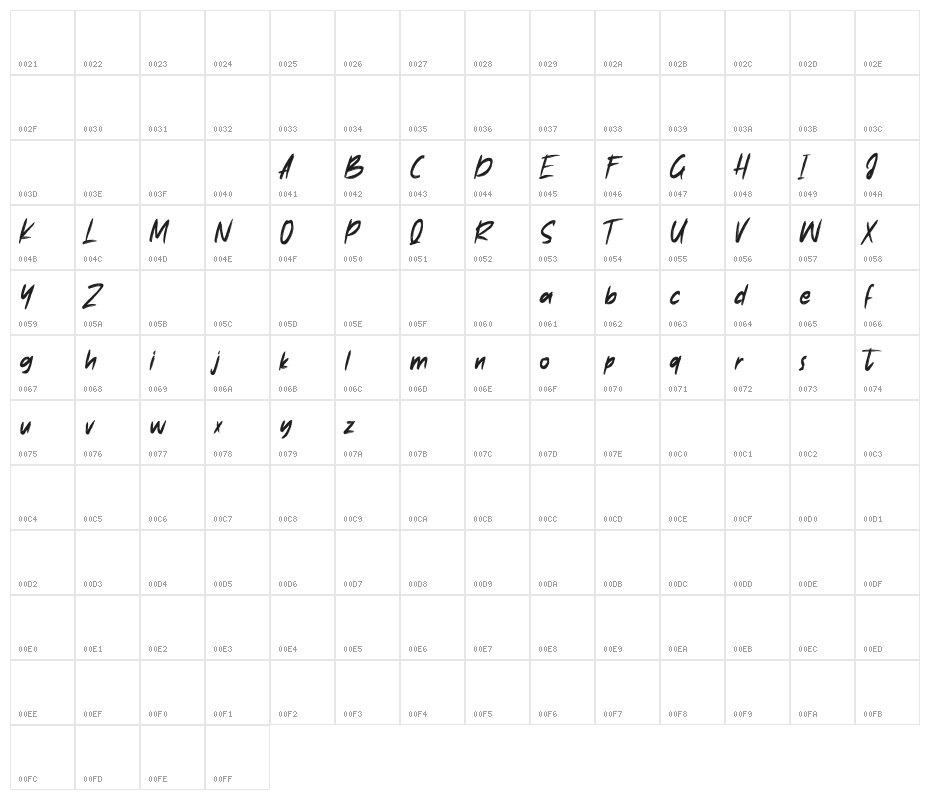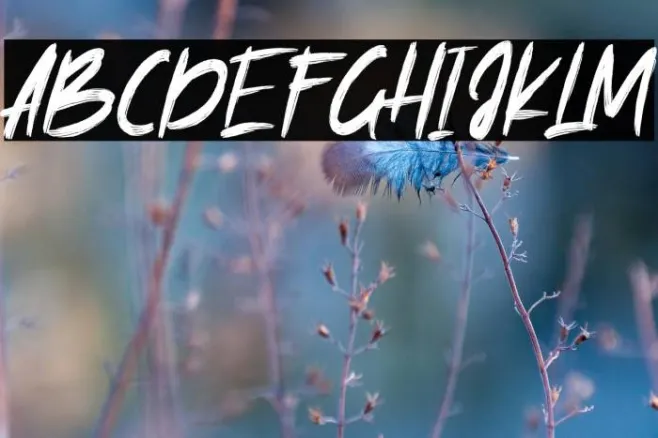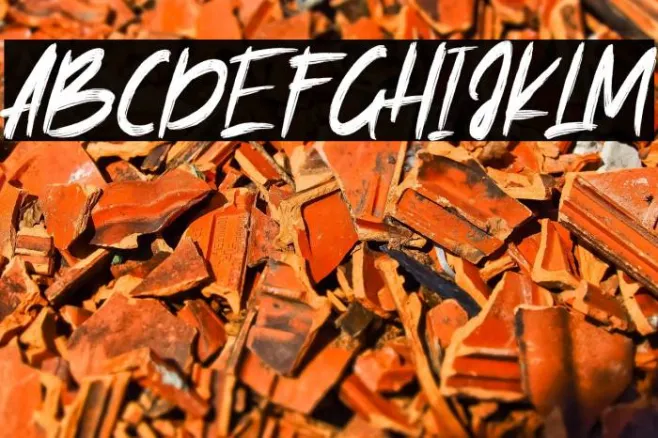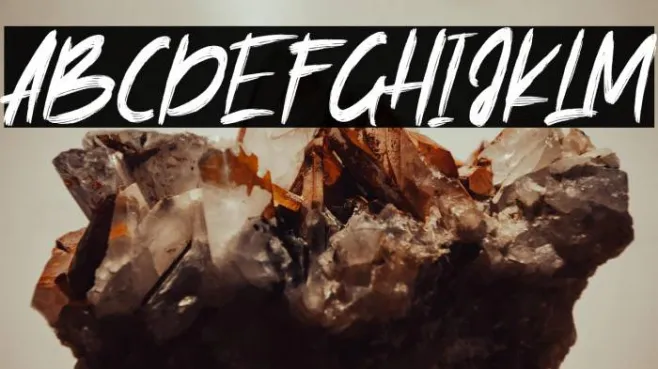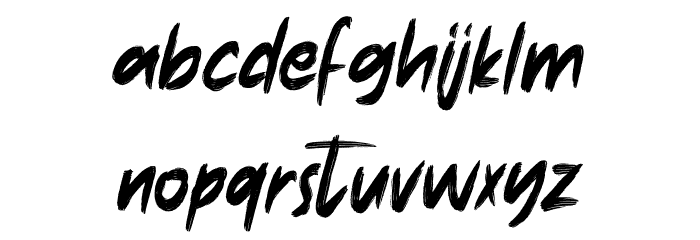
Anthrax Free Font Font
Anthrax Free Font Description
This font features a bold, energetic brush style that exudes a sense of dynamism and creativity. The strokes are thick and expressive, with a hand-painted appearance that adds a personal touch to any design. The uppercase letters are particularly striking, with varying stroke widths that create a lively rhythm. The lowercase letters maintain this energetic style, offering a cohesive look across different text cases. The font's overall appearance is both modern and artistic, making it suitable for projects that require a bold statement.
| Proposed Projects | Ideal for posters, logos, branding materials, and any design that needs a bold, artistic touch. |